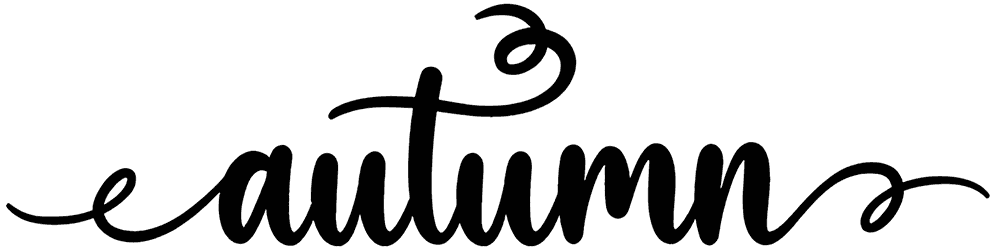
Autumn Font
Here, “fall breeze and autumn leave,” alright, on the RB collection, a script font named Autumn is unboxing. This autumn font can be a savior to pull your graphical display out of the tedium and make it engaging to any eye.
Since all characters unite and fit nicely with the earlier letter, it may make it tricky to read. Anyway, utilize it and run booming effects. Certainly, this masterpiece is one of those assets, with A-Z characters, accomplishing its job in bringing out any project.